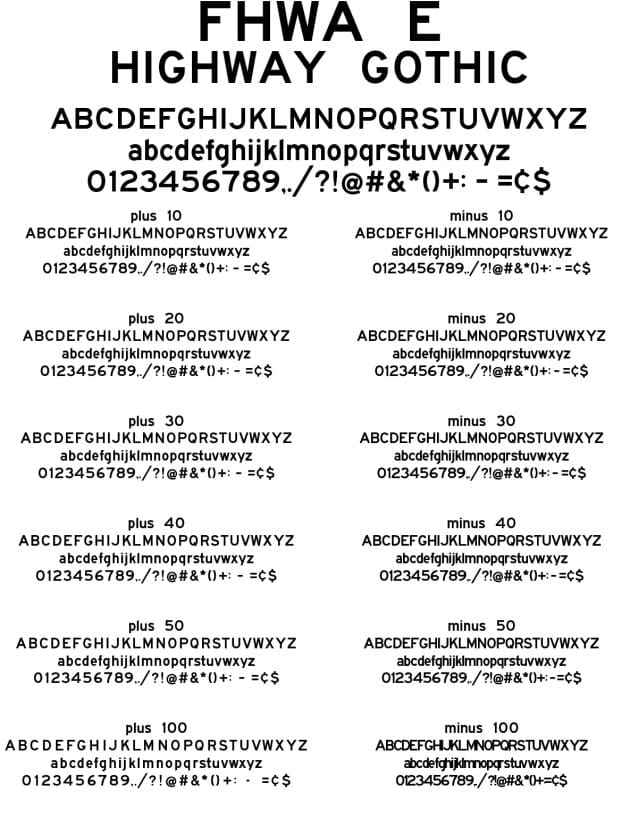
FHWA Series E 2024 Font
FHWA Series E 2024 Font a bold statement with our latest sans-serif font. With its clean lines and modern appeal, this font is sure to turn heads and leave a lasting impression. Perfect for headlines, logos, and any design that demands attention. It is both functional and stylish, making it a versatile choice for a wide range of design projects.